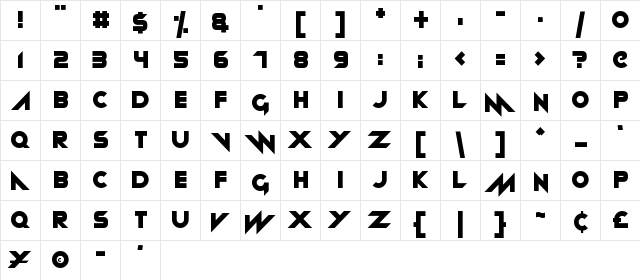
Neon machine Regular
Design Context for Neon machine Typeface
Neon machine has a distinctly futuristic character, with geometric precision and clean angles that feel at home in technology, gaming, and sci-fi contexts.
Pro Tip: Try Neon machine with generous letter-spacing in UI labels and navigation — the geometric forms benefit from room to breathe.